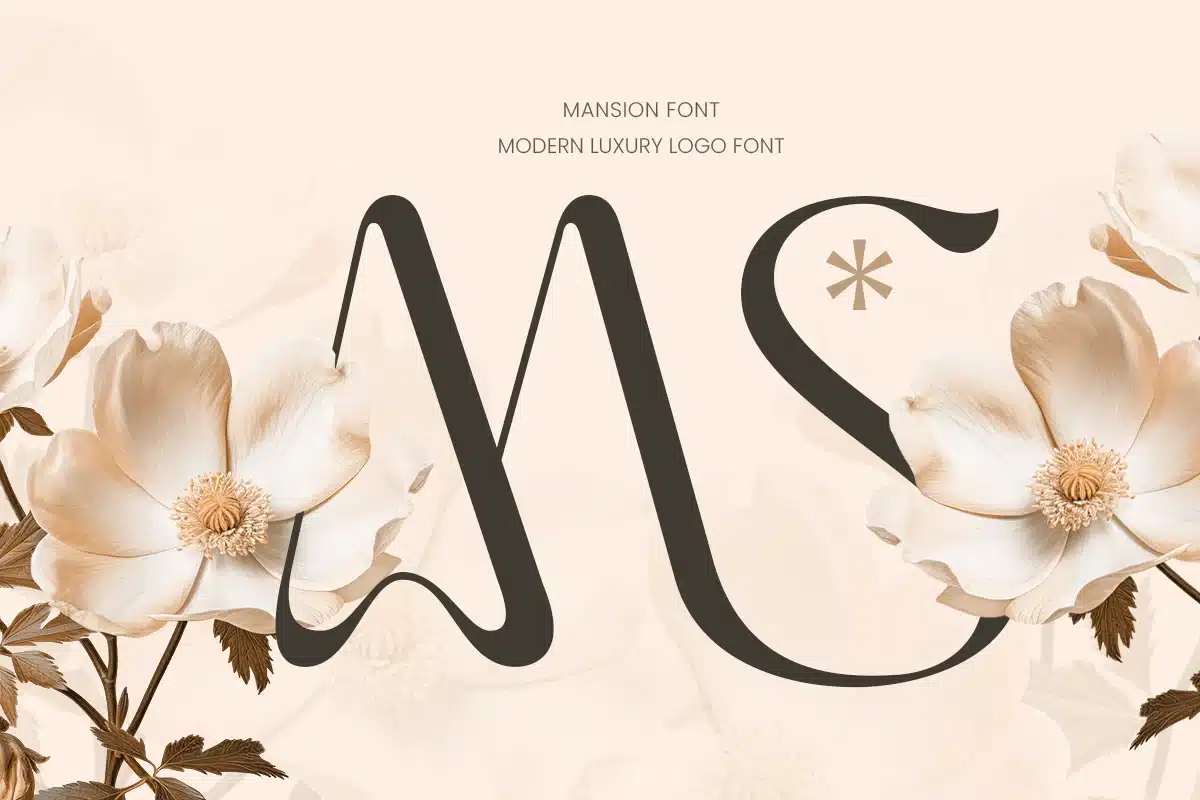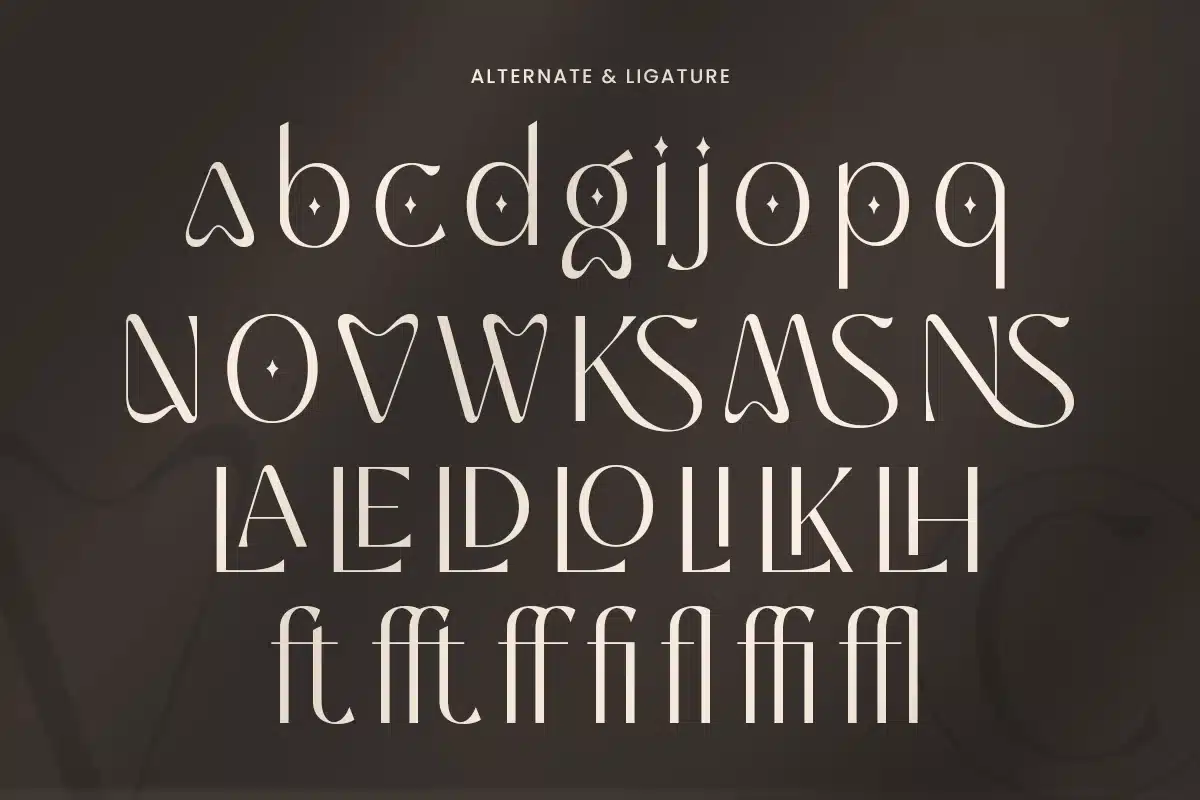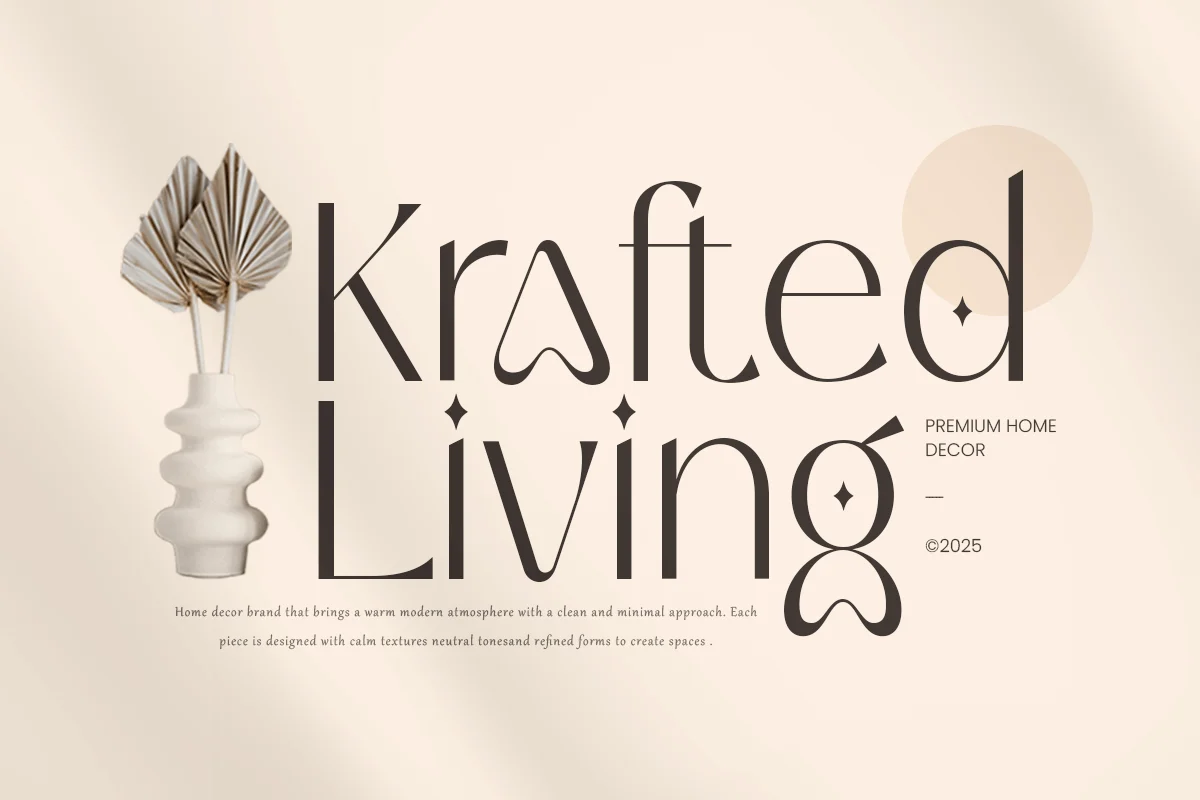
Mansion – Classy Branding Logo Font
MANSION is a modern luxury logo font designed to deliver a high-end, polished impression with confident elegance. Built with refined details and a sleek contemporary structure, this typeface creates a premium visual tone that feels exclusive, professional, and instantly brand-ready.
Created for logo-forward typography, MANSION works beautifully across wordmarks, brand identity systems, luxury packaging, labels, website headers, editorials, invitations, signage, and social media campaigns. Its modern balance keeps typography clean and readable, while the luxury styling adds prestige to every headline and brand statement.
Whether you’re crafting a fashion label, beauty brand, premium product packaging, or an upscale corporate identity, MANSION provides a modern luxury foundation that makes your typography feel timeless, sophisticated, and unmistakably premium.
Inspiration Behind MANSION
MANSION is inspired by contemporary luxury branding and modern editorial aesthetics—where clean structure, refined rhythm, and elegant simplicity define premium identity. The design focuses on sleek forms and upscale presence to support high-end logos, boutique branding, and premium communication across print and digital platforms.
MANSION Font Features:
- Modern luxury letterforms optimized for logo and wordmark design
- Clean, refined structure for premium branding consistency
- Elegant visual rhythm for headlines and brand statements
- OpenType features for polished professional typesetting
- Luxury logos, wordmarks, and premium brand identity systems
- Fashion, beauty, skincare, fragrance, jewelry, and boutique branding
- Editorial layouts, magazine headlines, and lookbook design
- Premium packaging, labels, invitations, and upscale stationery
- Social media campaigns, websites, ads, and marketing assets
Build a premium visual identity with MANSION—crafted for modern luxury logo design with elegant, high-end impact. ✨